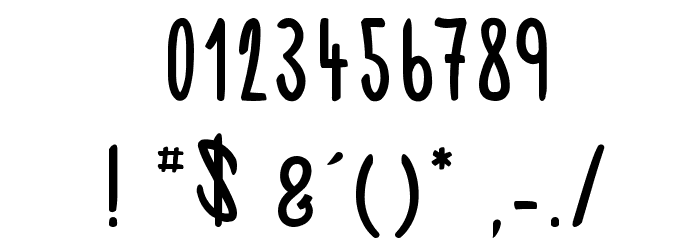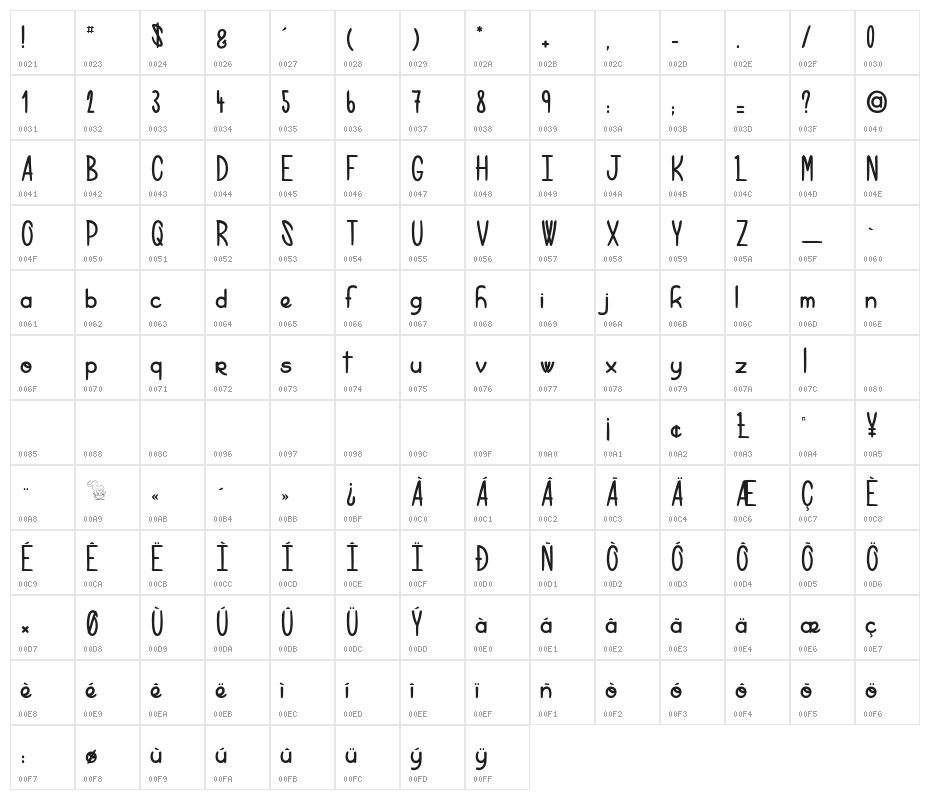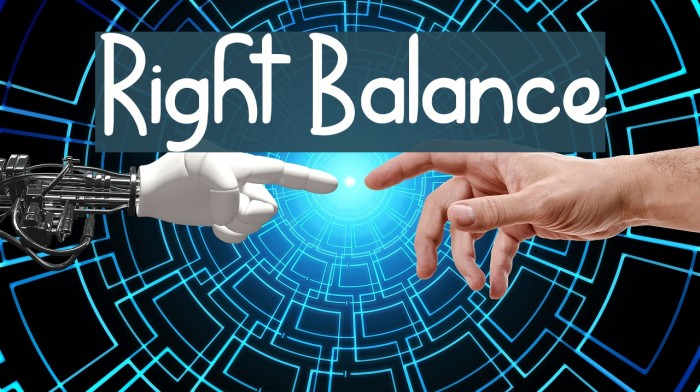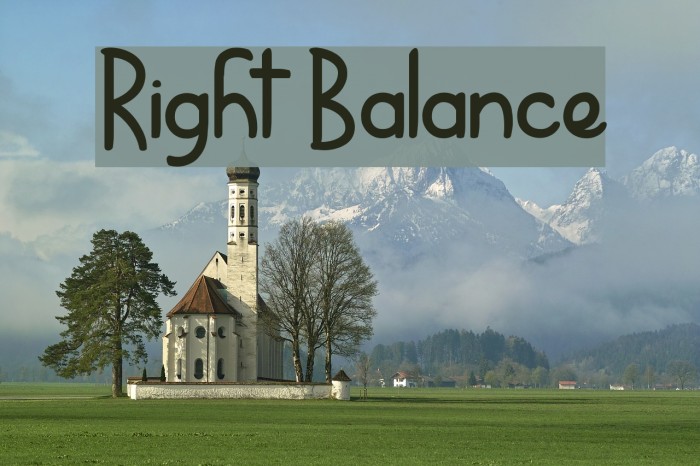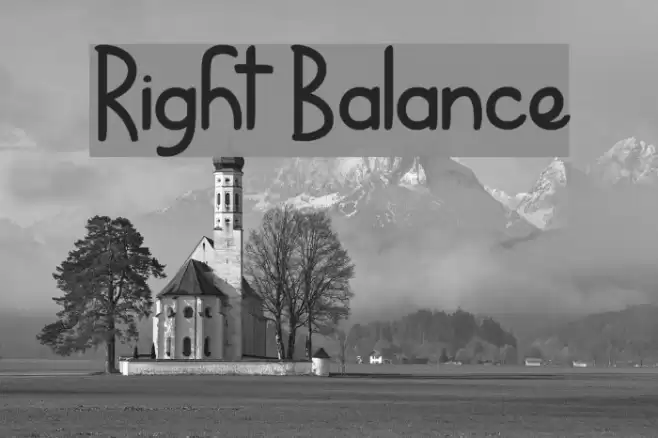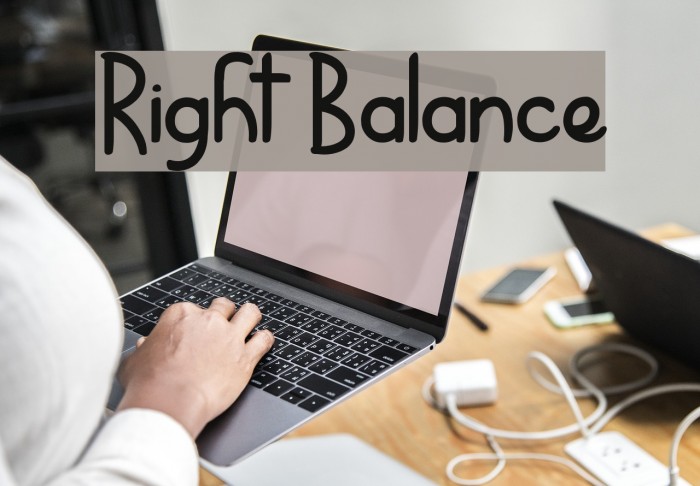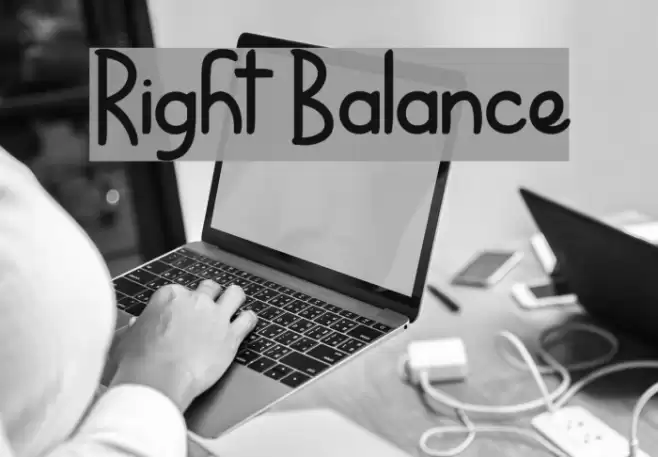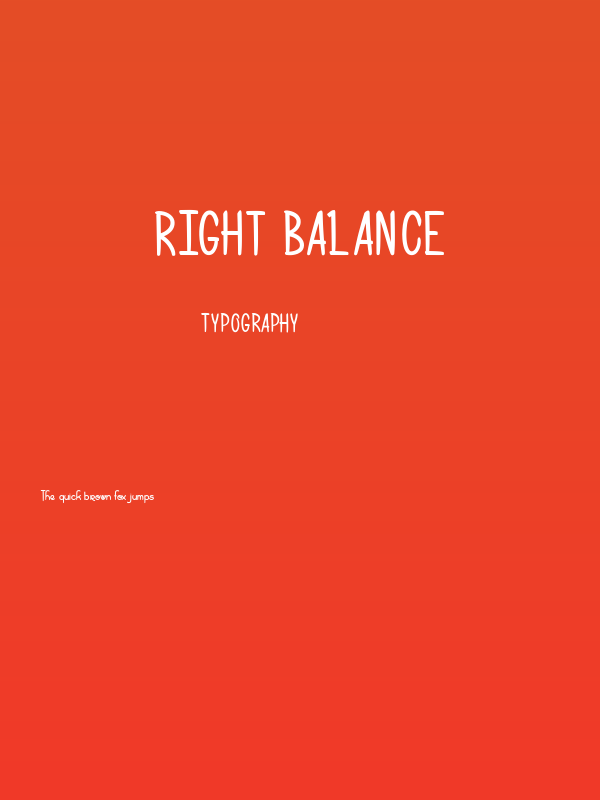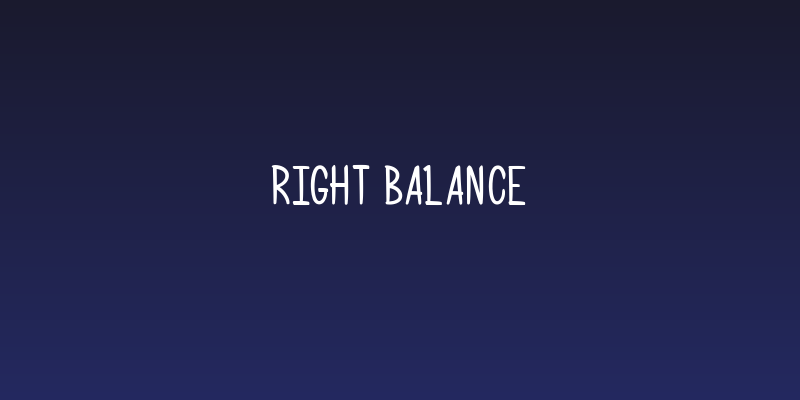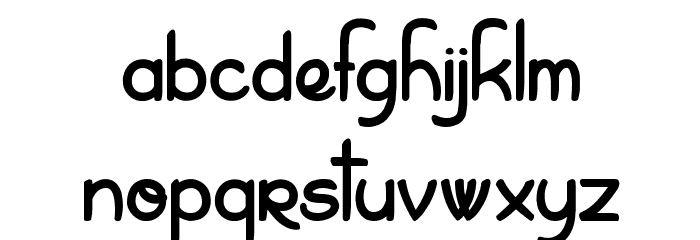
Right Balance Font
Right Balance Description
This font features a playful and whimsical style with tall, narrow characters that have a hand-drawn appearance. The uppercase letters are bold and slightly irregular, giving them a unique and informal look. The lowercase letters maintain the same playful quality, with some characters having distinctive loops and curves. The numerals are consistent with the overall style, maintaining the same height and playful design. Special characters are included, each with its own quirky twist, adding to the font's charm. This font is ideal for projects that require a fun and engaging aesthetic.
Overall StylePlayful
Proposed ProjectsGreat for children's books, playful branding, greeting cards, and creative posters.